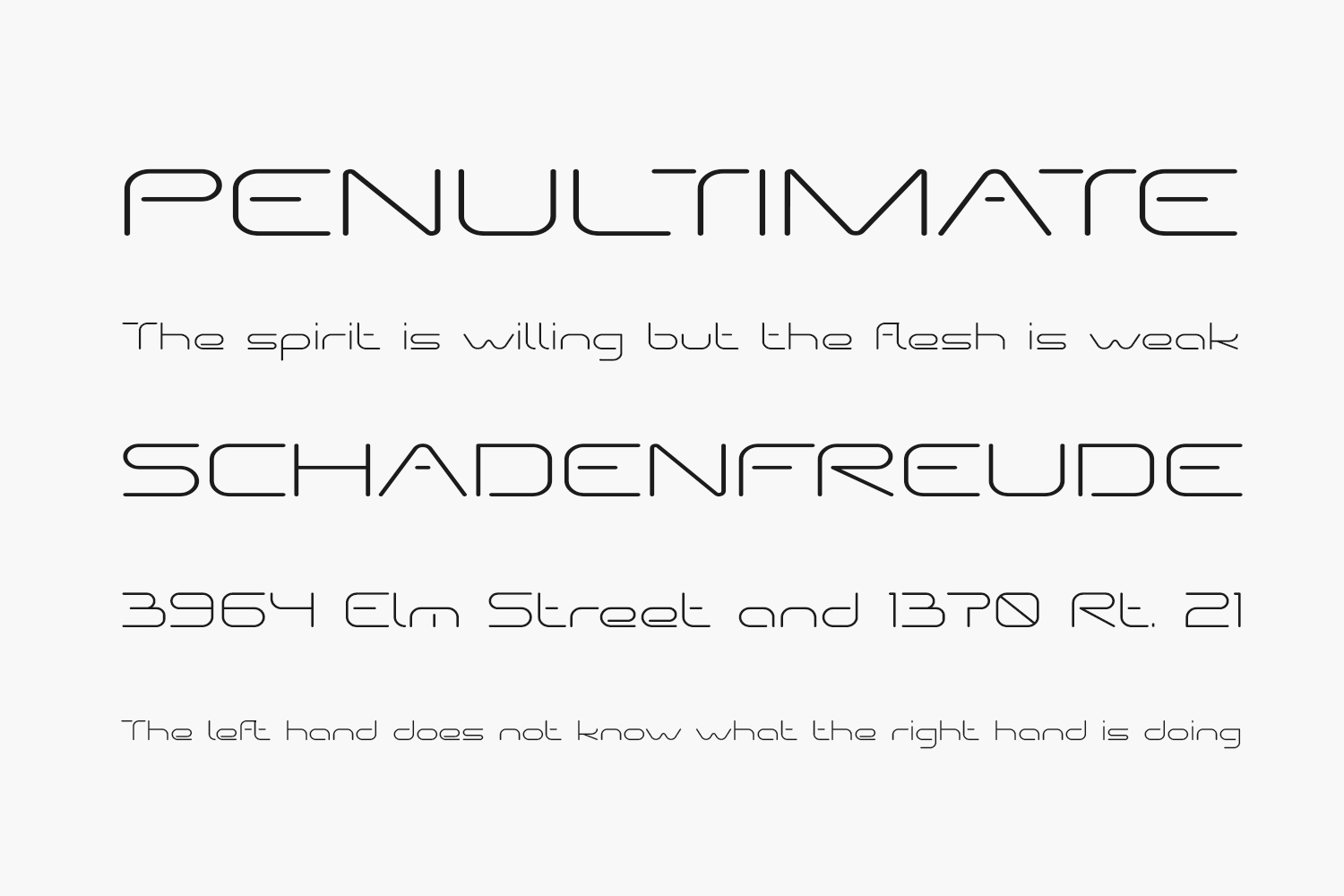
Nextstep is a strong and expressive display font designed by Pinisiart to bring bold energy to your creative projects. With its sharp edges, structured strokes, and modern industrial aesthetic, this free font works perfectly for crafting powerful logos, eye-catching posters, branding materials, and more. Available in TTF format with support for Latin characters — ideal for designers looking to make a visual impact without compromising readability.
Why Choose Nextstep?
- Bold Industrial Style: Combines strength and clarity for a high-contrast, attention-grabbing look.
- Ideal for Posters & Signage: Designed for large text applications like billboards, event banners, or urban visuals.
Where to Use Nextstep?
Nextstep shines across a variety of design applications:
- Logos & Branding: Adds confidence to brand identities for tech startups, fashion labels, or action brands.
- Poster & Billboard Design: Perfect for outdoor advertising, concert flyers, and movie titles needing visibility from a distance.
- Social Media Graphics: Creates striking text overlays for Instagram headers, TikTok videos, or YouTube thumbnails.
- Editorial Headers: Stands out in magazine covers, blog headers, and digital banners with high contrast typography.
- Product Packaging: Brings intensity to product names on beverage cans, streetwear tags, or lifestyle goods.
Design Tips with Nextstep